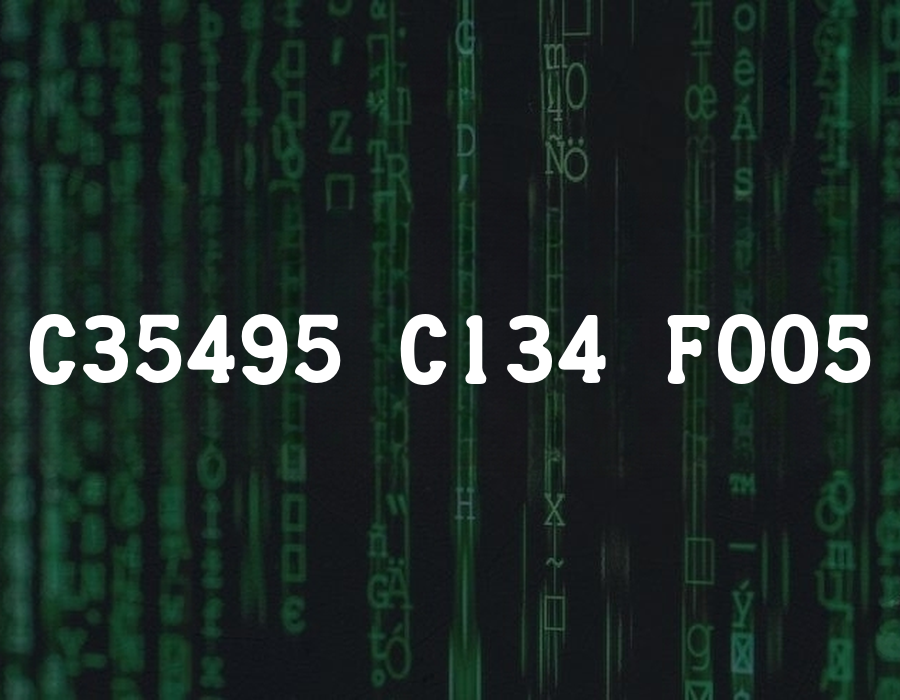
About Credit Card Font
Credit Card Regular is a utilitarian, all-caps typeface designed to replicate the distinctive look of embossed characters on credit and debit cards. Its letterforms are simple, monospaced, and feature a subtle "raised" effect created by highlights and shadows, giving a 3D, engraved impression. This font is primarily used for mockups of financial cards, security badges, ID templates, and any design where a direct simulation of physical embossed text is needed. Its functionality is highly specific, and it is rarely used for general typographic purposes.